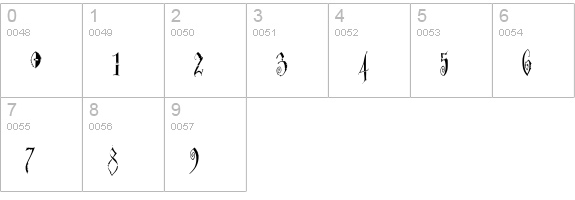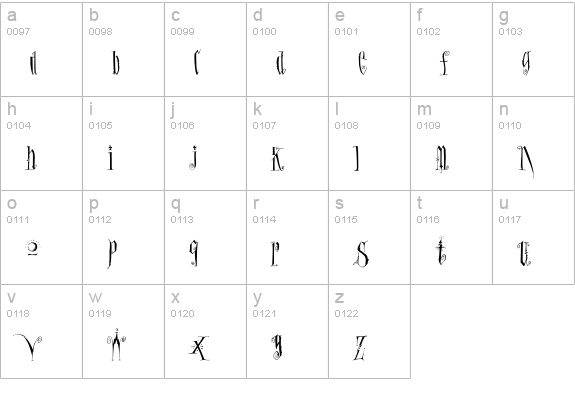
MarcusAurelius Font Details
Introducing MarcusAurelius, a captivating and sophisticated font that exudes elegance and timeless beauty. Inspired by the legendary Roman emperor Marcus Aurelius, this font perfectly captures the essence of his wisdom and strength. With its delicate strokes and intricate details, MarcusAurelius font seamlessly blends classical elements with a modern twist, making it an ideal choice for various design projects. Whether you're working on a logo, branding materials, invitations, or even a book cover, this font will effortlessly elevate your work to new heights. One of the most remarkable aspects of MarcusAurelius font is that it is free. Yes, you read that right! You can freely download this exceptional font at FontsMarket.com. We believe that great design should be accessible to all, and we're thrilled to offer MarcusAurelius as a gift to the design community. Crafted with meticulous attention to detail, MarcusAurelius font offers a wide range of characters, including uppercase and lowercase letters, numbers, punctuation marks, and special symbols. Its versatility allows you to create stunning compositions that are both visually striking and memorable. Whether you're a professional designer looking to add a touch of sophistication to your projects or an aspiring creative seeking a font that will make your work stand out, MarcusAurelius is the perfect choice. Its timeless appeal and exquisite craftsmanship will leave a lasting impression on your audience, making every design truly unforgettable. Download MarcusAurelius font for free at FontsMarket.com and embark on a journey of beauty, elegance, and creativity. Unleash your imagination and let MarcusAurelius elevate your designs to extraordinary levels.